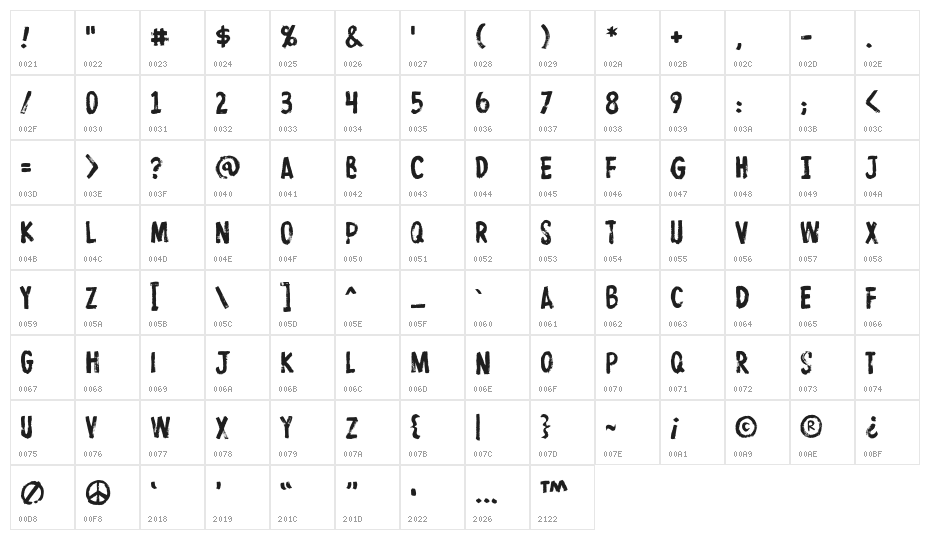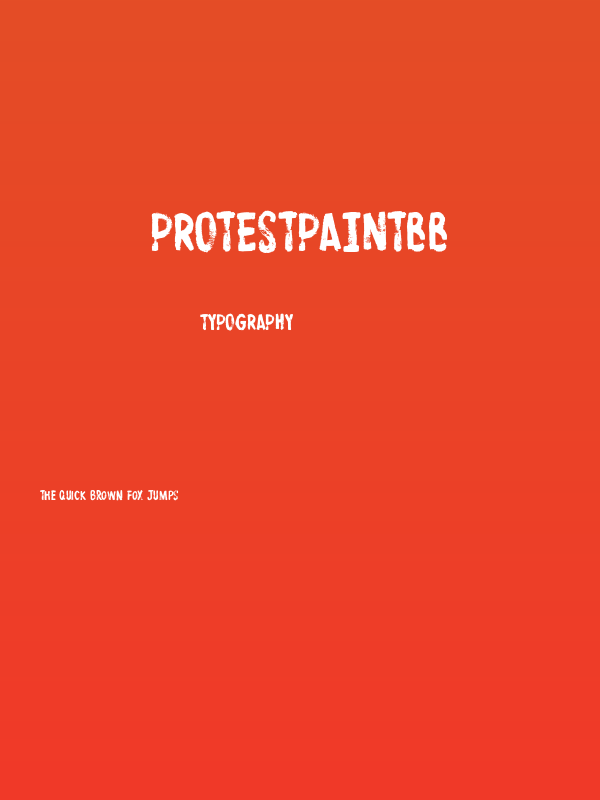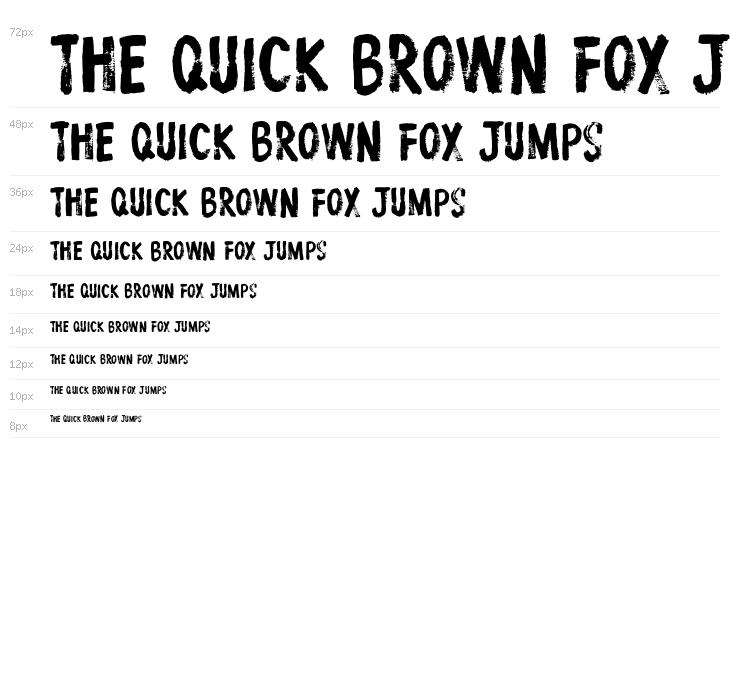
ProtestPaintBB Font
ProtestPaintBB Description
This font features a bold, expressive style with a hand-painted appearance. The characters are unevenly textured, giving them a raw and energetic feel. The strokes are thick and irregular, mimicking the look of brush strokes on a canvas. This style conveys a sense of urgency and dynamism, making it ideal for attention-grabbing designs. The uppercase and lowercase letters maintain a consistent height, while the numbers and special characters follow the same bold and textured aesthetic. The overall look is both artistic and rebellious, perfect for projects that require a strong visual impact.
| Overall Style | Modern, Artistic |
| Use Case | Headlines, Posters, Artistic Designs |
| Proposed Projects | Ideal for protest posters, album covers, street art designs, and bold advertising campaigns. |